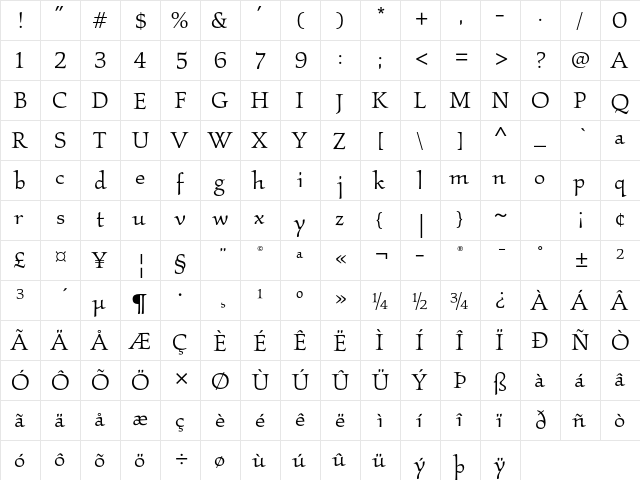
Kallos ITC Std Book Font Preview
Kallos ITC Std Book
Kallos ITC Std Book Font Details
| Designer | Phill Grimshaw |
Design Context for Kallos ITC Std Typeface
Kallos ITC Std offers clean, dependable letterforms without strong stylistic allegiance, making it a practical choice for designers who need flexibility.